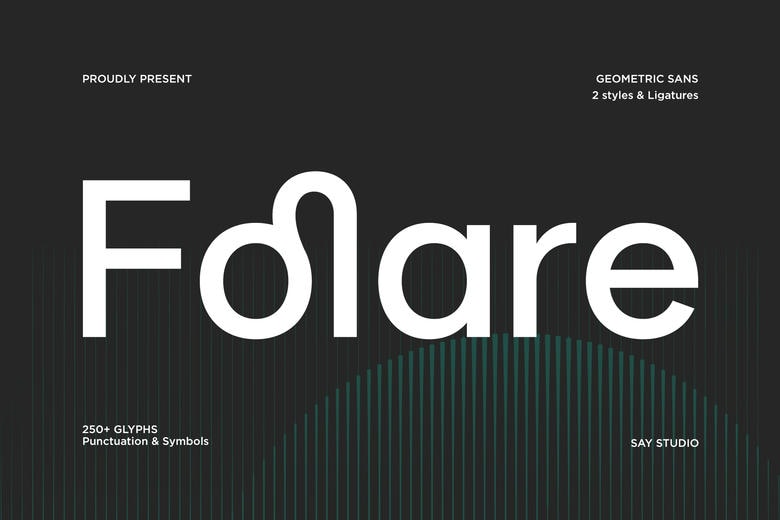
Folare Font
Folare is a modern geometric sans-serif font with clean lines, balanced shapes, and a fresh look. Its versatility makes it a great choice for branding, logos, creative agencies, ads, editorial layouts, posters, websites, social media, packaging, and business projects.
Folare’s clean, professional style gives display headlines and visual identities a confident, sophisticated feel.
Folare Sans Serif Font